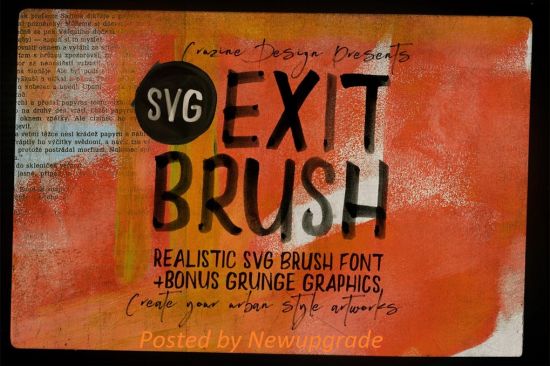
DesignOptimal - Exit Brush & SVG Font
Brush, marker or grunge style sans display font for your new projects. Great for grunge or artistic projects!
14 grunge graphic elements - frames,backgrounds & shapes